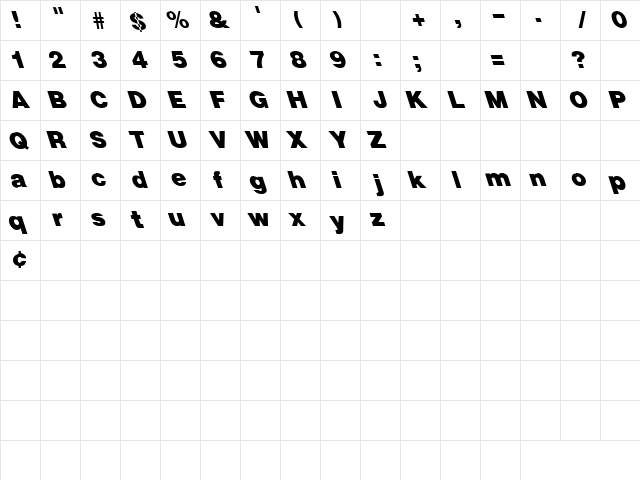
Communication 4 Regular
Design Context for Communication 4 Typeface
Communication 4 is a composed and adaptable typeface that performs quietly and consistently across a wide range of design contexts.